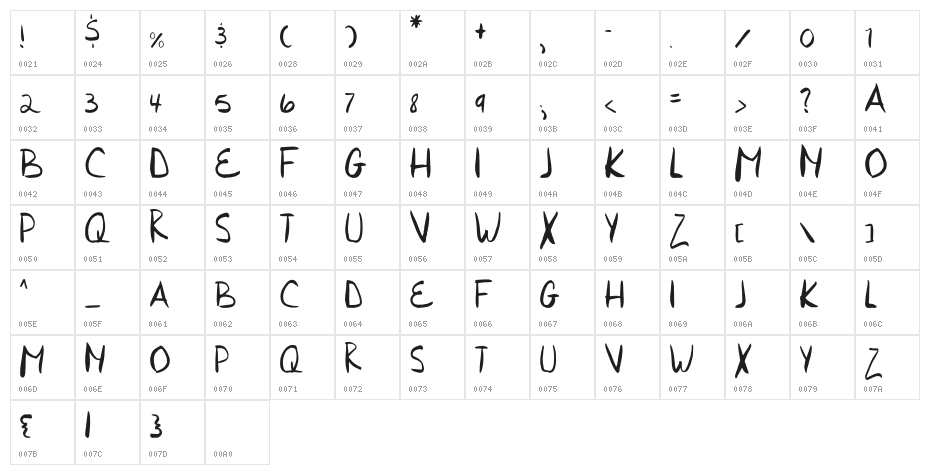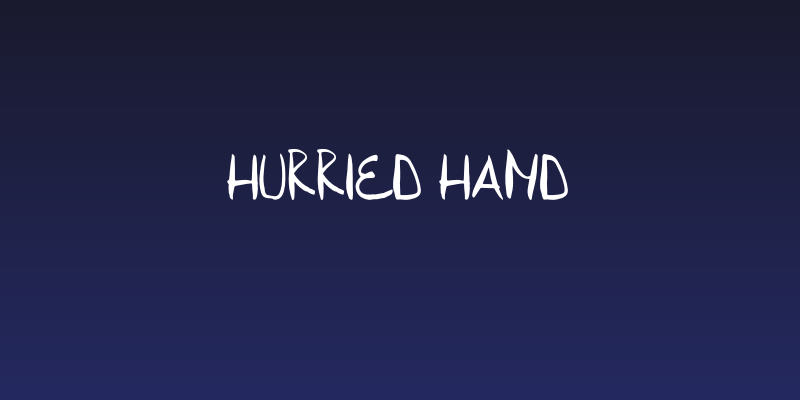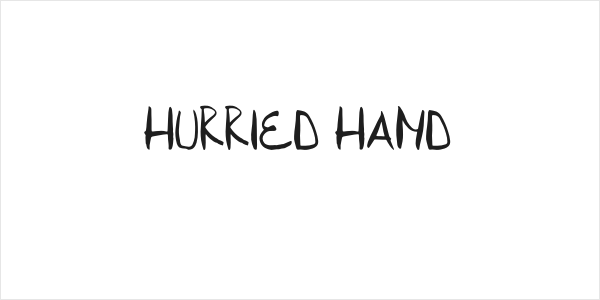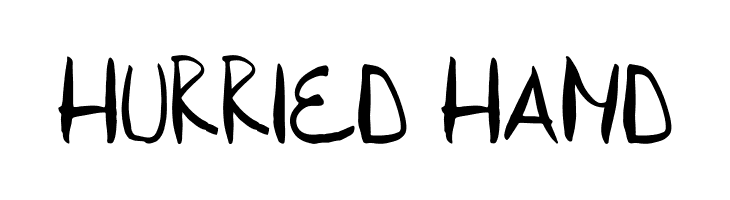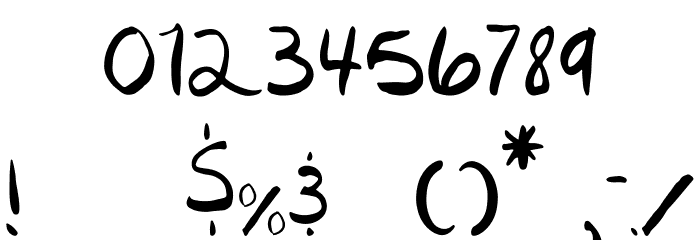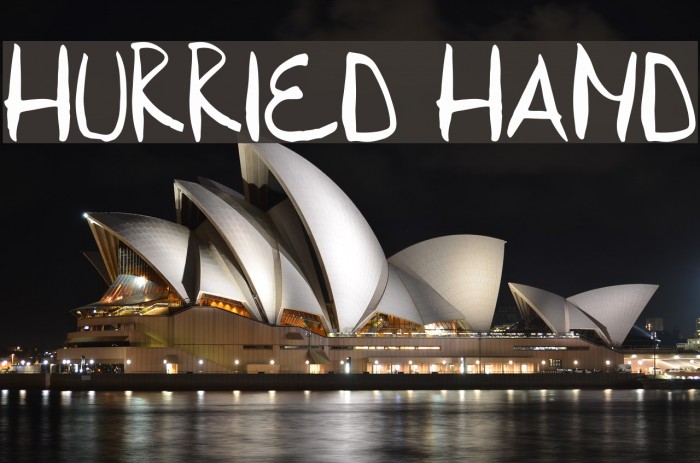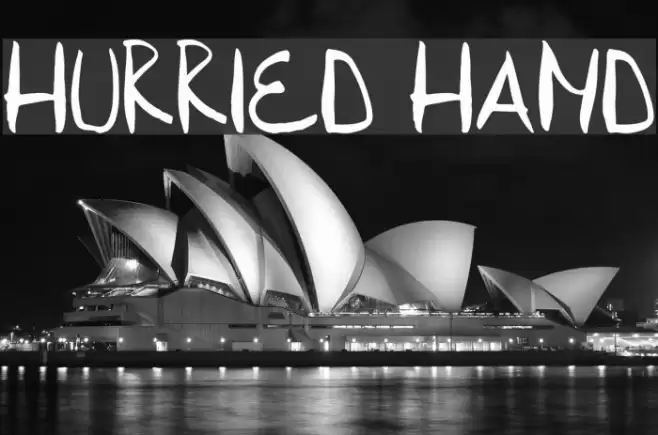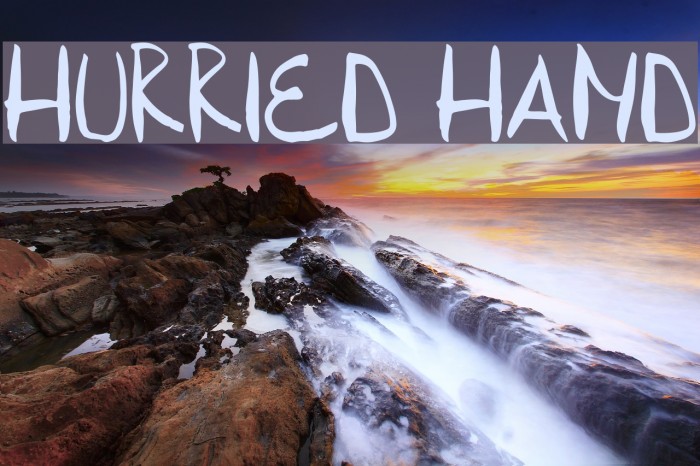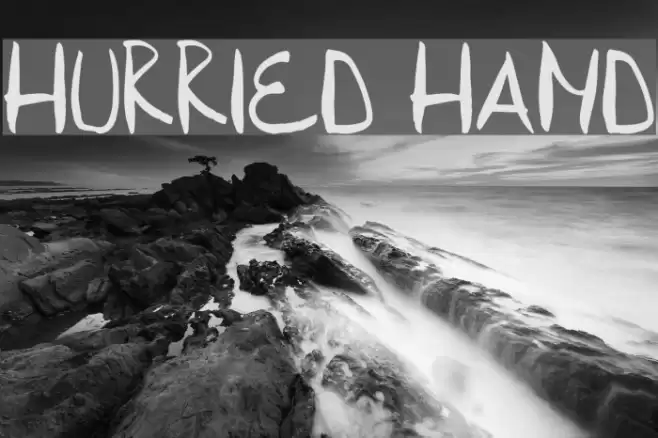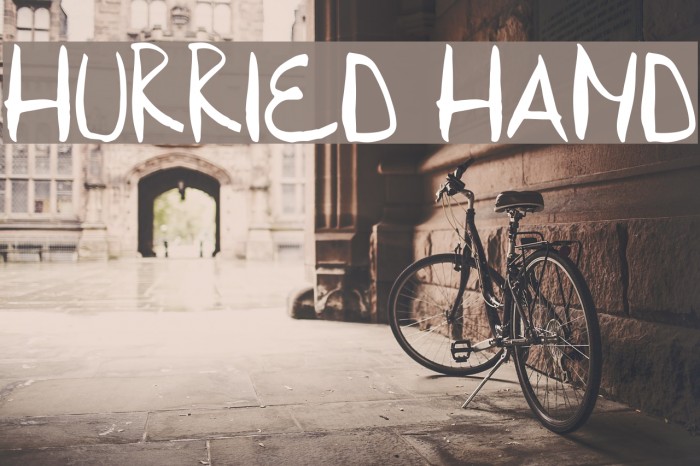
Hurried Hand Font
| Caz de utilizare | Headlines, Logos, Creative projects |
| Proiecte propuse | Great for greeting cards, posters, informal invitations, and creative branding. |